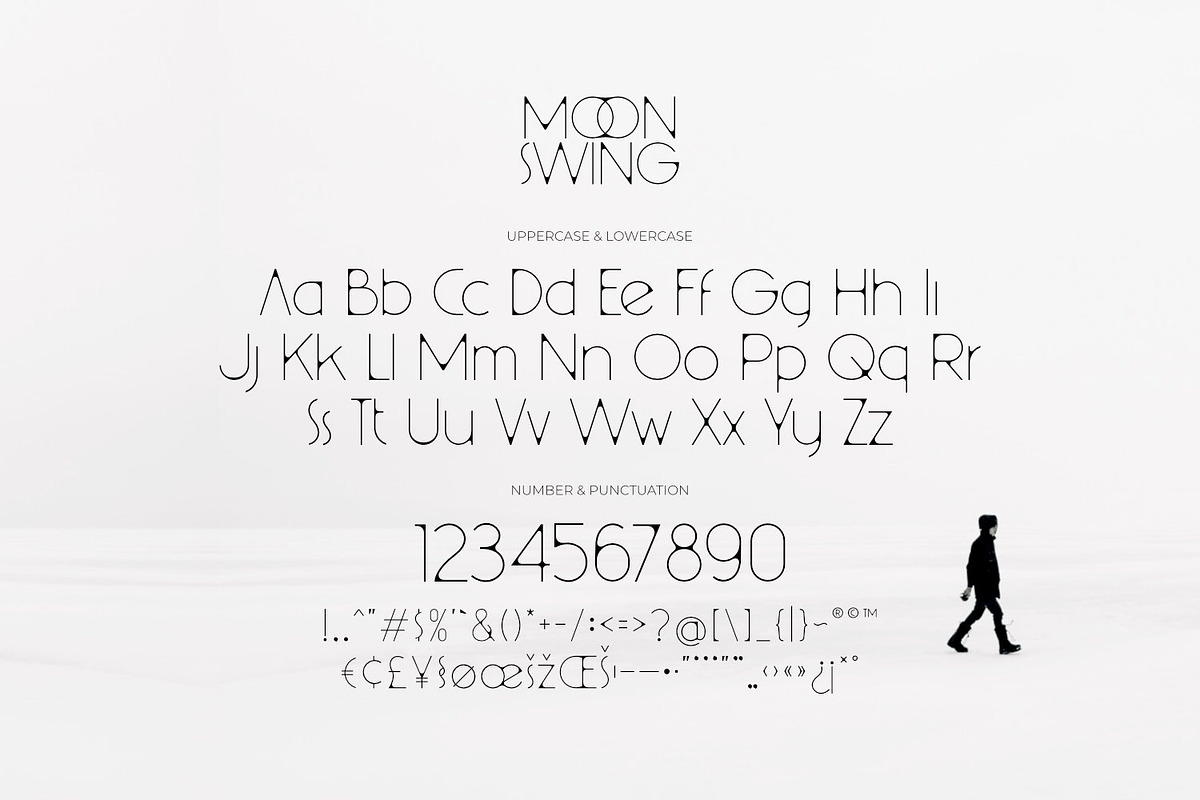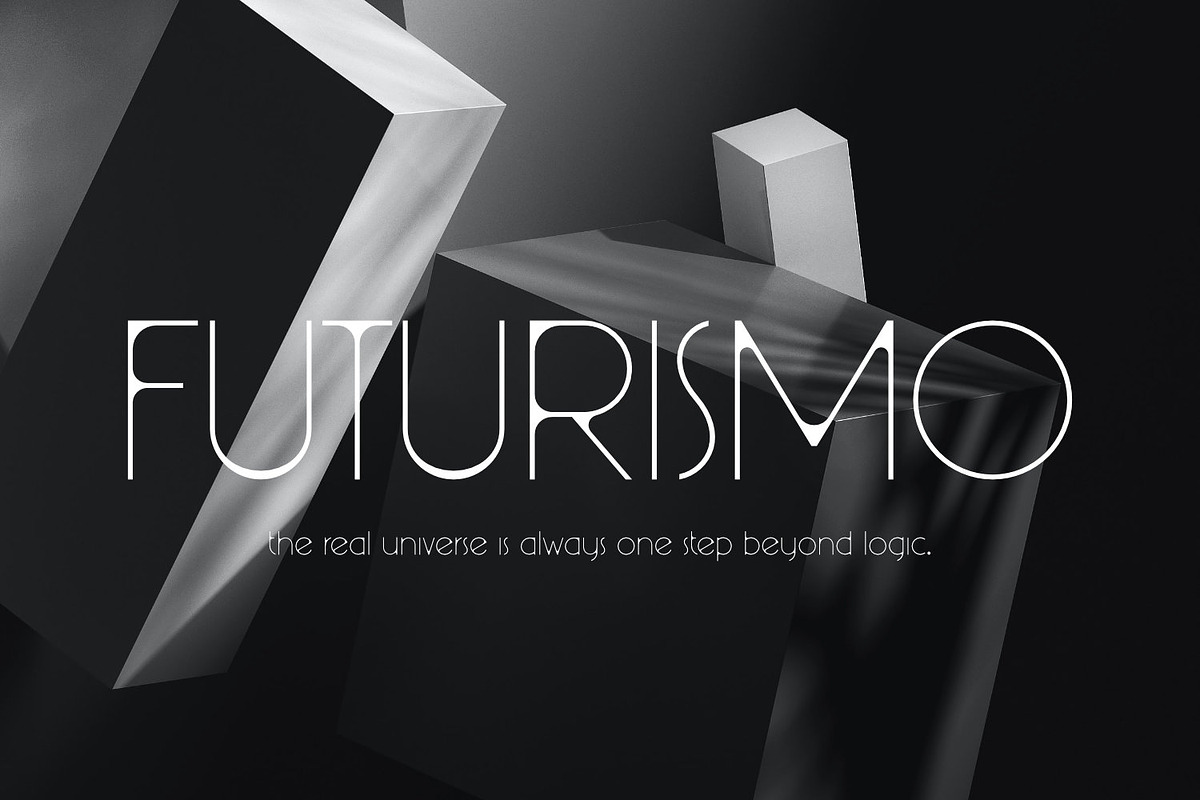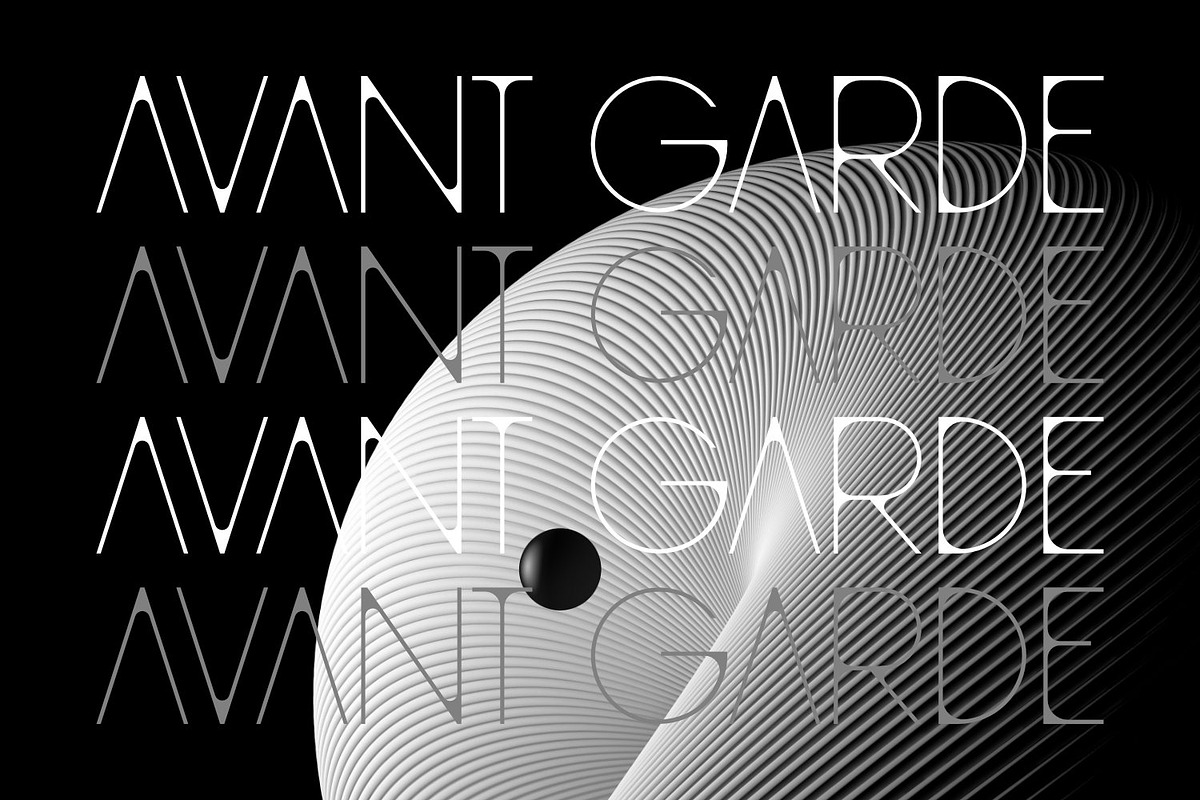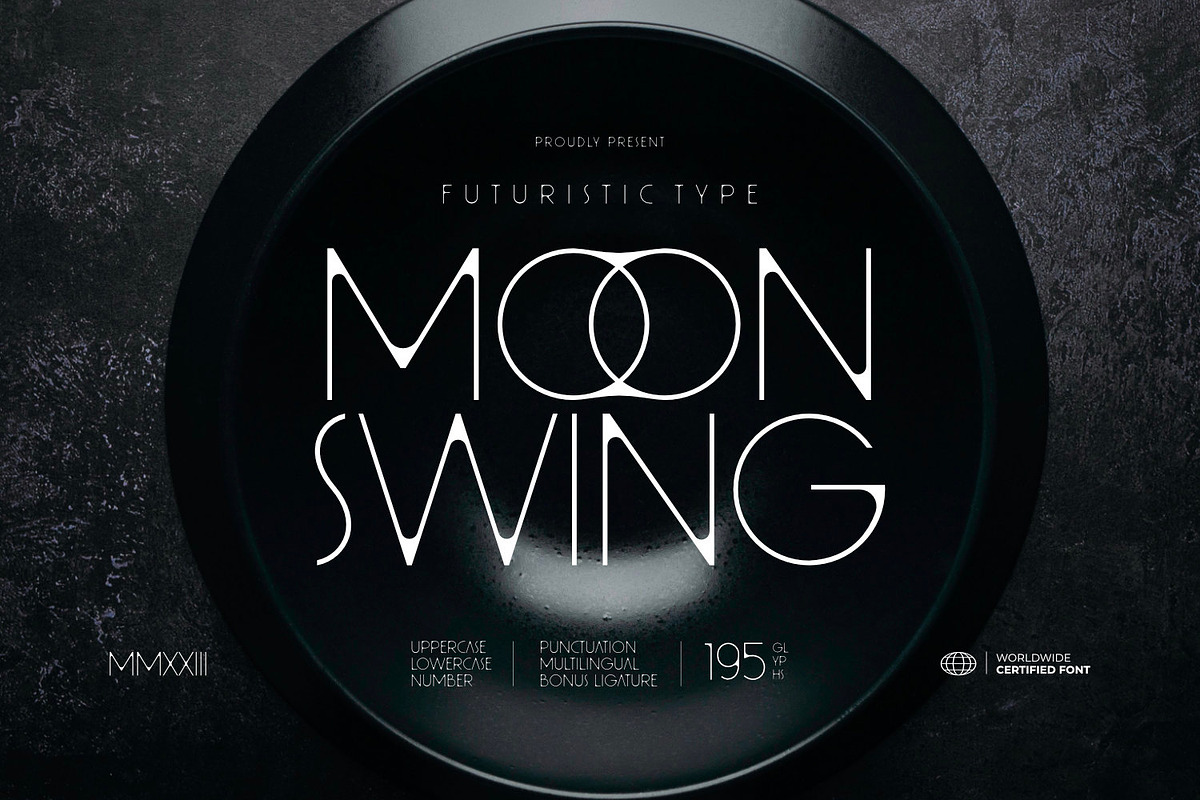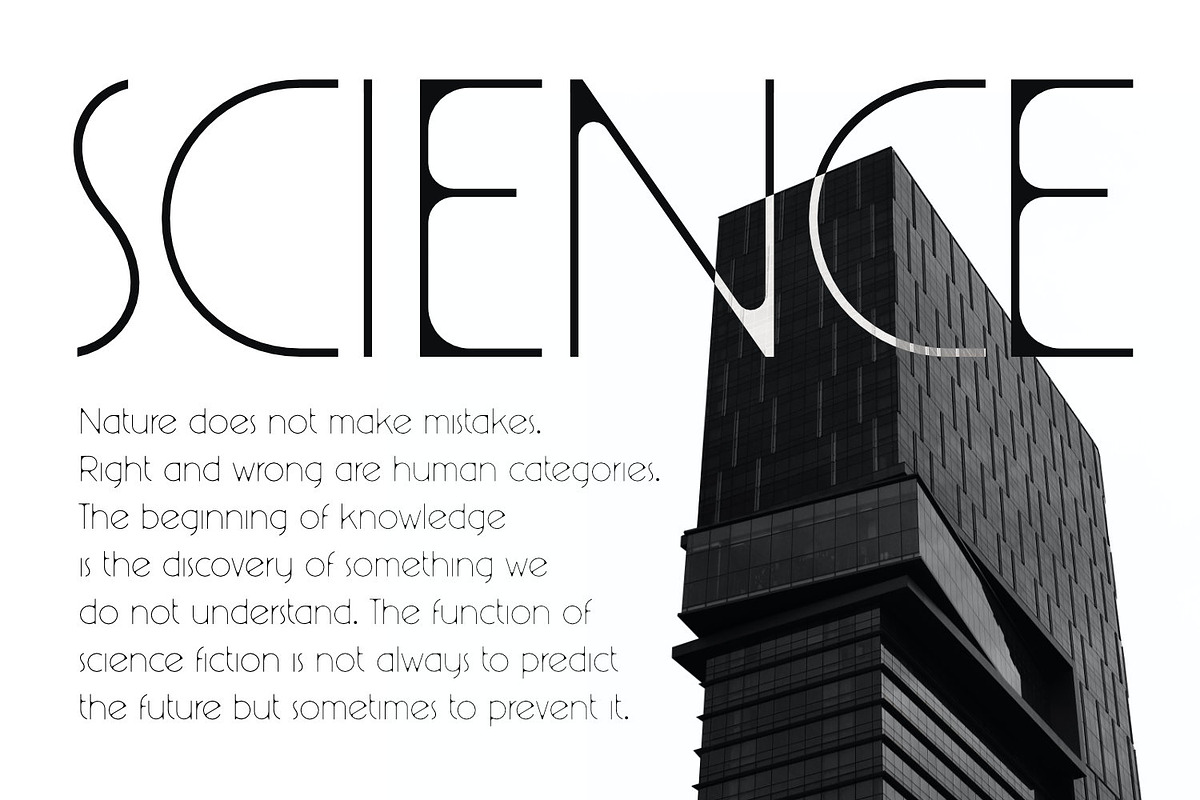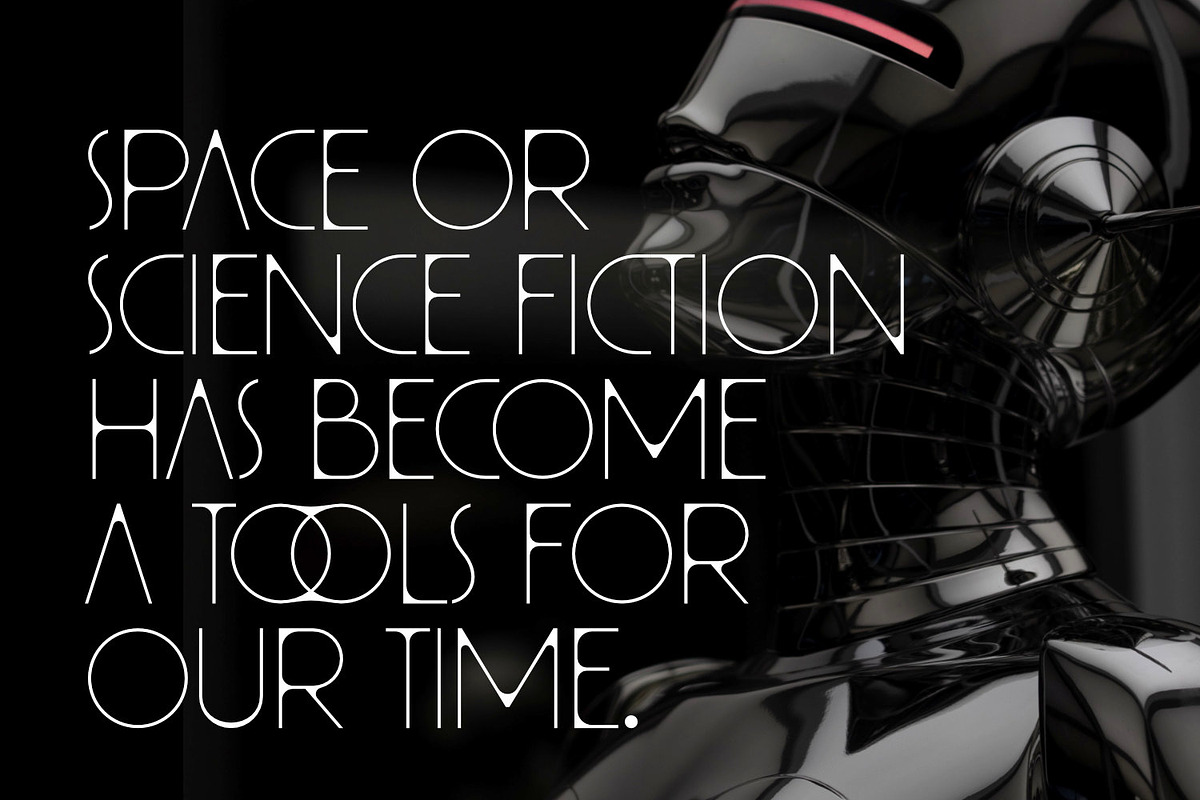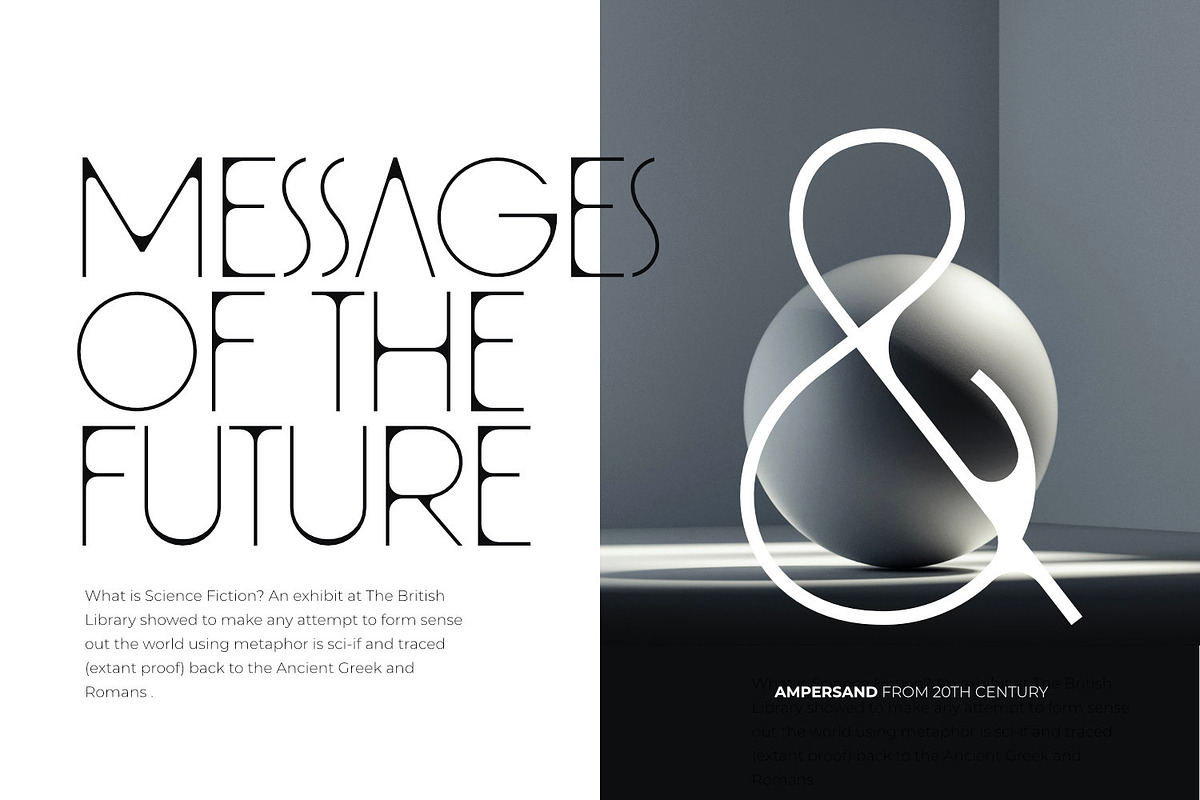
Moon Swing - Futuristic Type
Proudly present Moon Swing - Futuristic Type, created by ikiiko.
Moon Swing is a thin-minimalist style typography that embodies both modernism and futurism. The simplicity and clean forms combined with the decorative curves convey a futuristic aspect that represents the future.
The sans-serif styling and the font's light strokes and gentle curves give this font a clean and elegant look. The corners of the letterforms are rounded to provide a precise geometric feel, making it perfect for applications where a contemporary look is required.
- Ligature (Bonus)